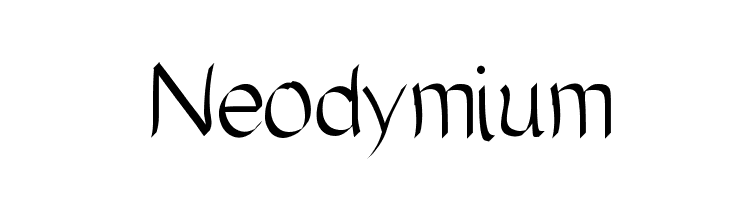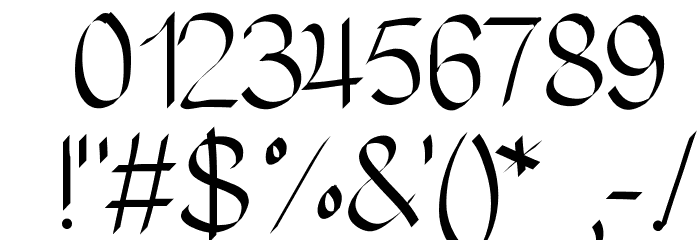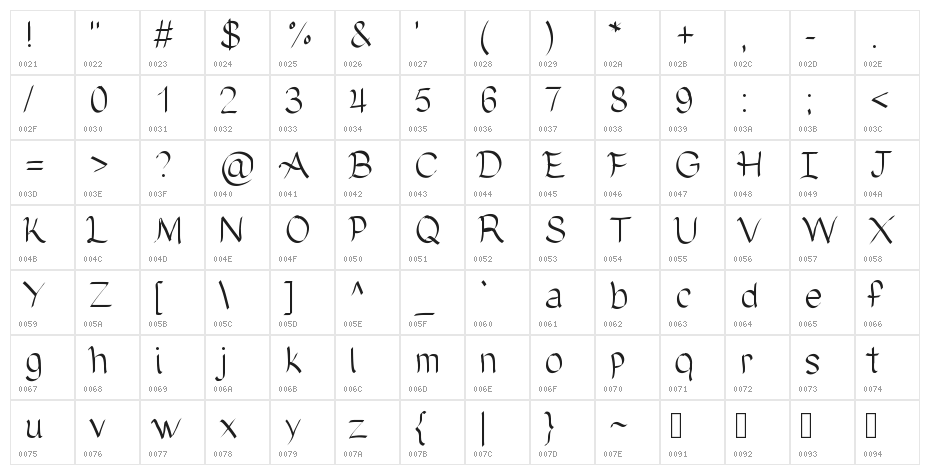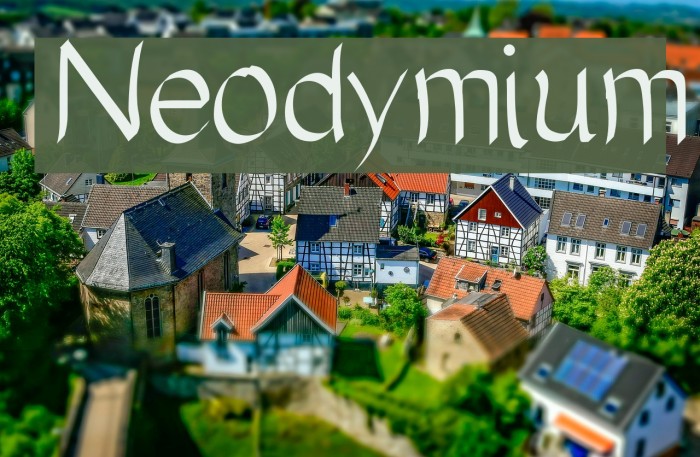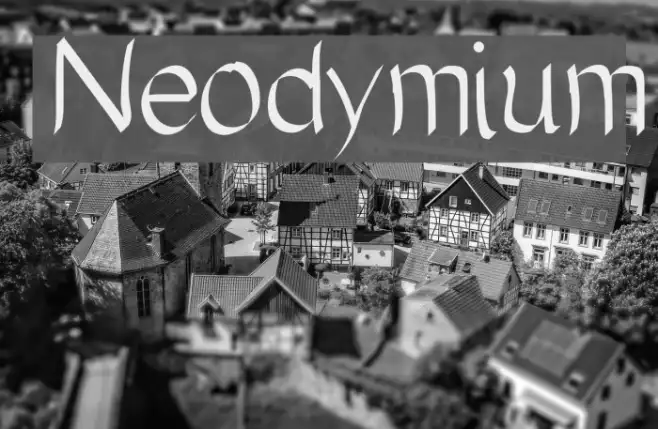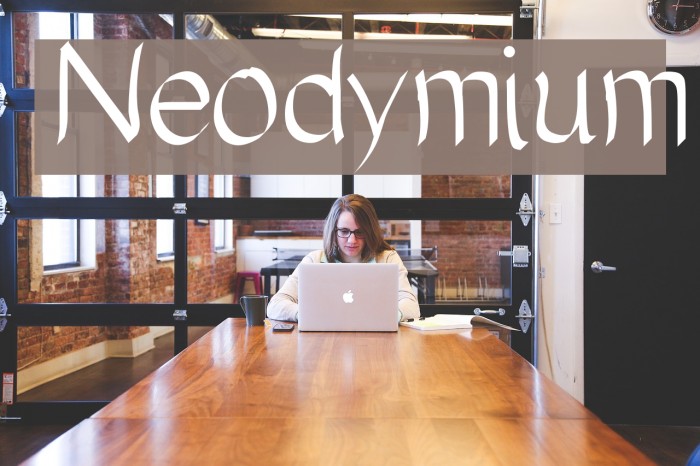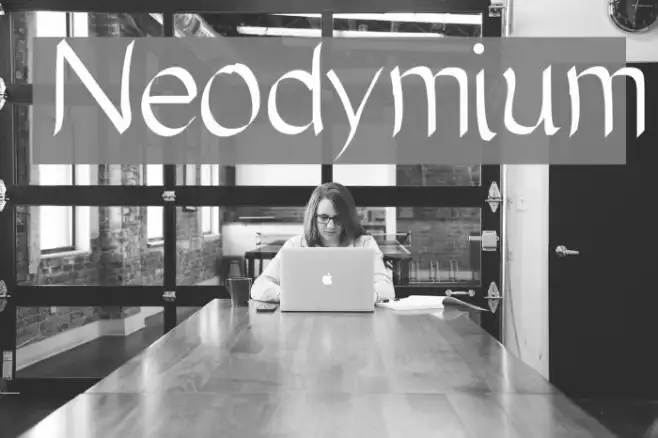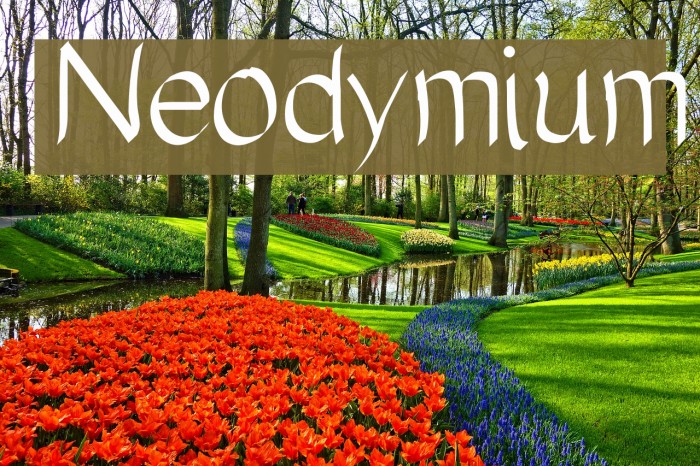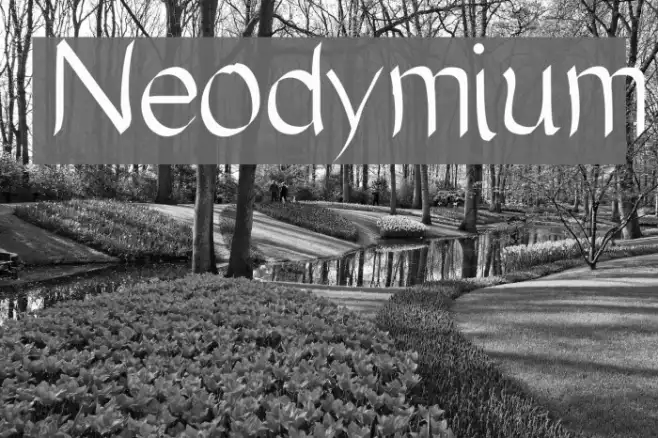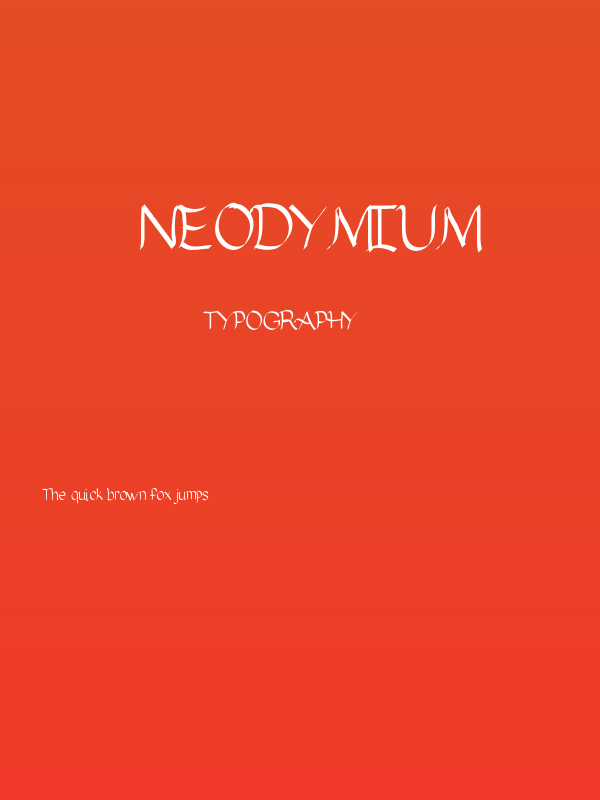
Neodymium Font
Neodymium Description
This font features a unique blend of sharp, angular strokes and smooth curves, creating a dynamic and energetic appearance. The uppercase letters exhibit a distinctive flair with elongated serifs and pointed edges, while the lowercase letters maintain a consistent flow with subtle variations in stroke width. The numerals are bold and slightly condensed, ensuring readability. Special characters are designed with the same attention to detail, incorporating both sharp angles and smooth curves. The overall design is modern and slightly aggressive, making it suitable for projects that require a bold statement.
| Proposed Projects | Ideal for branding, posters, and headlines that require a modern and energetic look. |